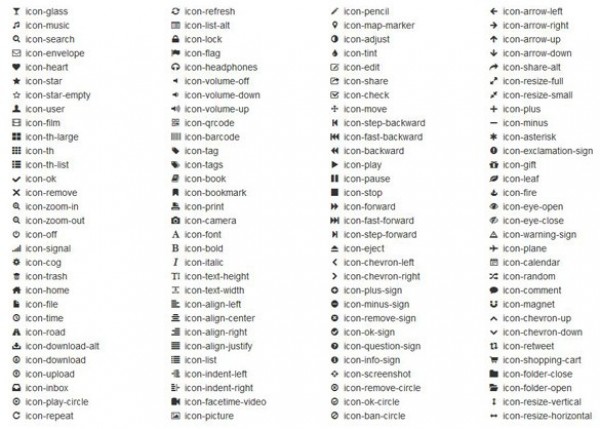
150 Font Awesome Iconic Font Pack CSS
150 iconic font designed for use with Twitter Bootstrap. Font Awesome is glyph pictographic icons to show web related actions. CSS